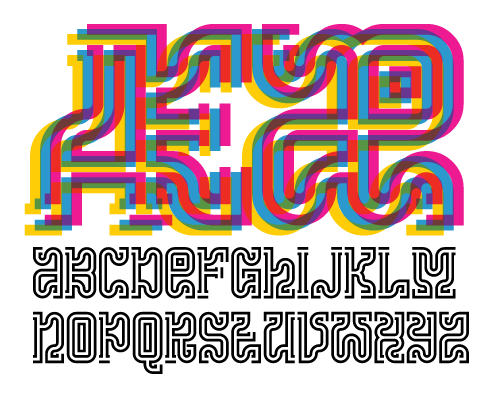
In love with it! ?
Cool sample, compa!
Mesmerizing inline font; the letters look like ancient stone carvings. Great demo. 10/10
aMAZEing!
This is pretty nice. We should have the + brick in the Connecting Brick sets, I know I can create the Mono and Bi-line, but probably not the Triline + brick, even with composites and stacking (without the lines overlapping)
Thanks BWM, well spotted on the biline +. I was going to propose it as a new brick until I realised I could make a 4x4 composite. Your are right, a triline + composite is not possible.
There is also a biline #...
NVM, it's still a biline font.
There seems to be a problem with capital O...
@BWM or is it...